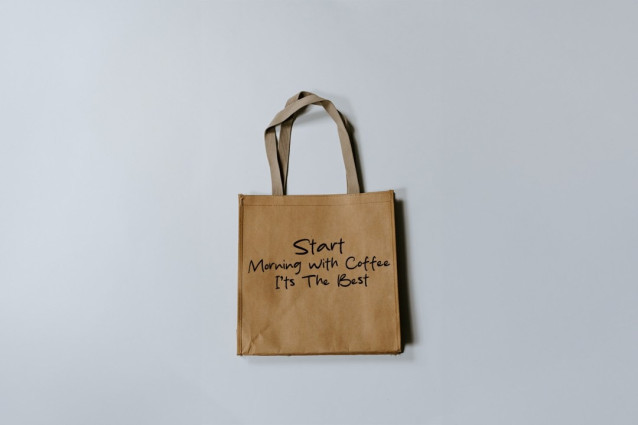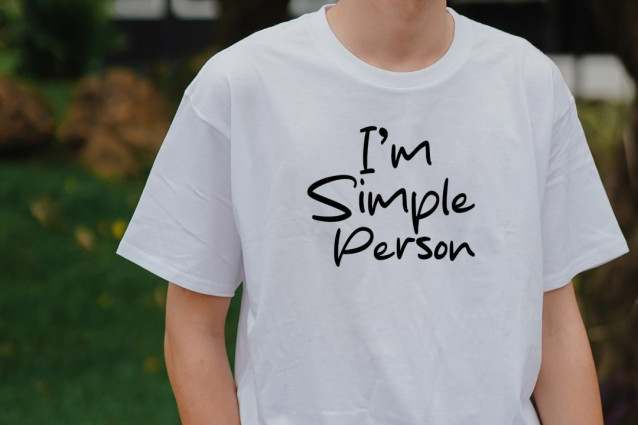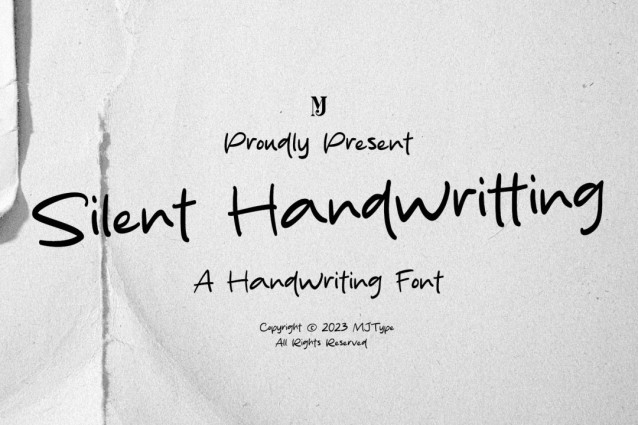
Silent Handwritting Font
Silent Handwritting Font is a simple and friendly handwritten font. Its natural and unique style makes it incredibly fitting to a large pool of designs. The only limit is your imagination!